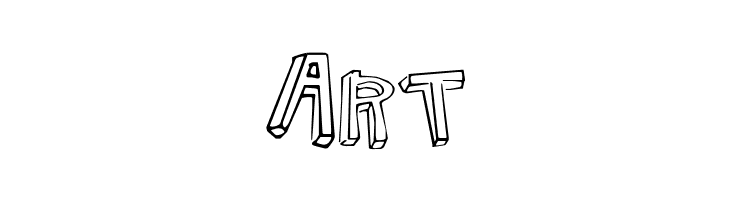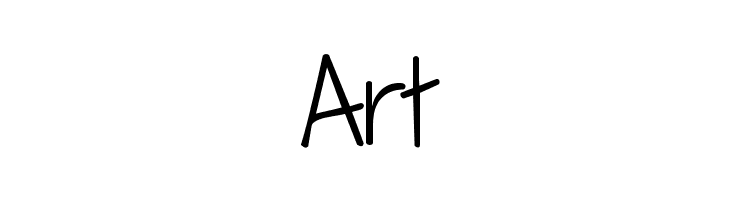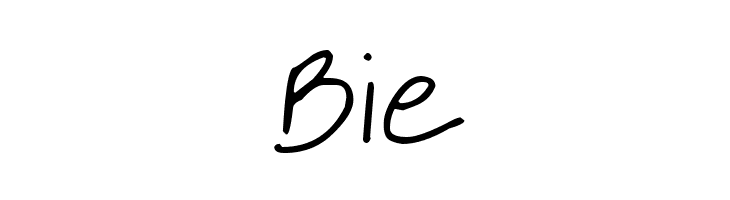
A fluid, cursive handwritten font with elegant, connected characters.
A playful, handwritten font with a whimsical and casual style.
A playful, 3D hand-drawn font with bold outlines and a dynamic style.
A casual, handwritten font with a friendly and approachable style.
A playful, casual handwritten font with smooth, flowing curves.
A playful handwritten font with a casual, dynamic style.
A playful, hand-drawn font with bold, irregular characters and a whimsical style.
A playful, handwritten font with a casual and dynamic style.
A casual, handwritten font with a playful and informal style.
A playful, handwritten font with smooth, rounded edges and a casual style.